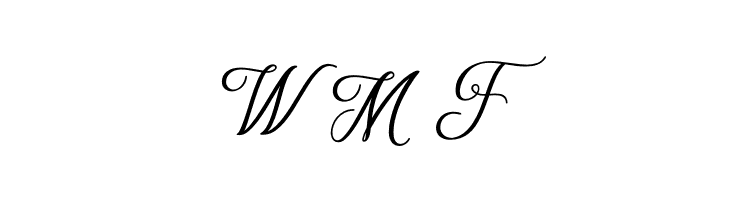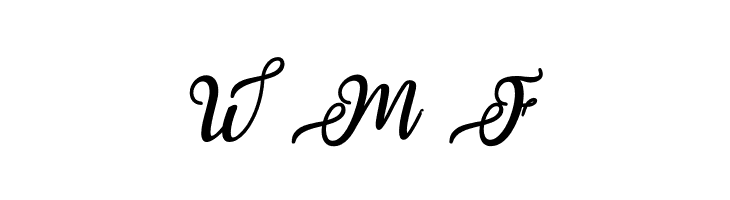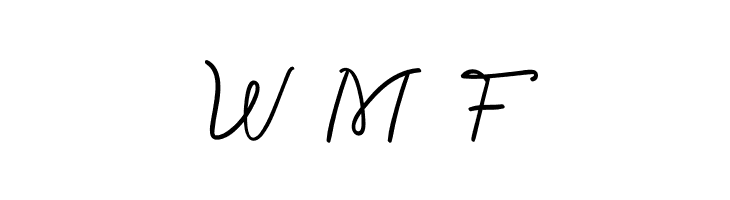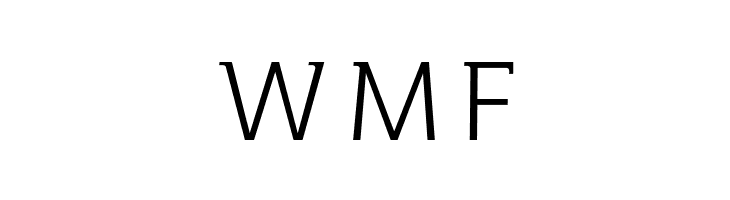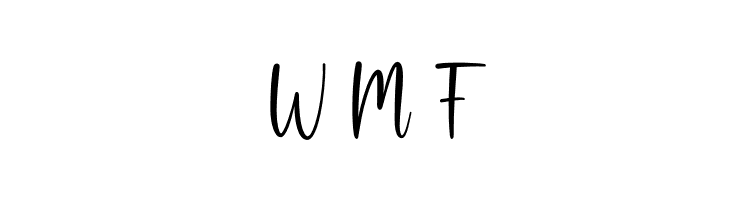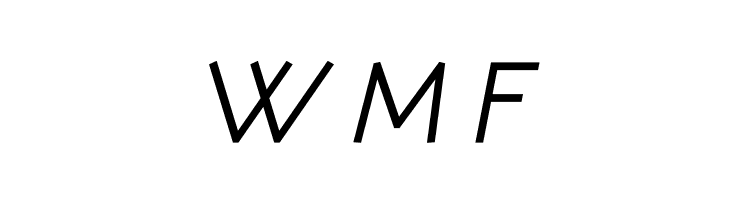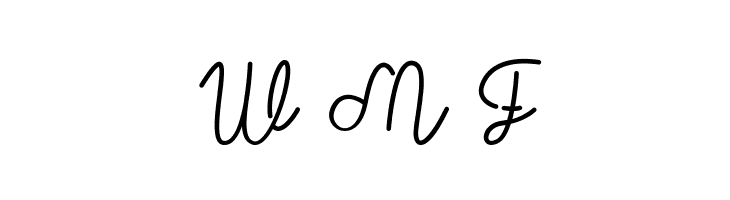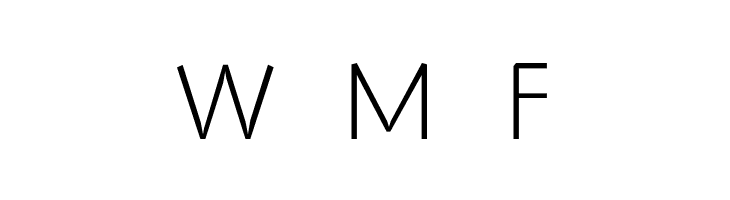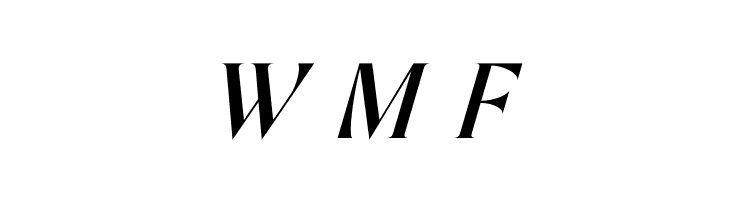
An elegant script font with flowing, interconnected letters and ornate flourishes.
An elegant and flowing script font with a handwritten appearance.
A graceful handwritten script with elegant, flowing characters.
A modern, geometric font with medium contrast and a sleek appearance.
A playful, modern handwritten font with a lively and energetic style.
A bold, italicized font with a modern and sleek design.
A city skyline-themed font with characters resembling urban architecture.
A flowing, elegant script font with smooth, continuous strokes.
A modern, geometric sans-serif font with a clean and balanced design.
An elegant italic serif font with high contrast and flowing curves.